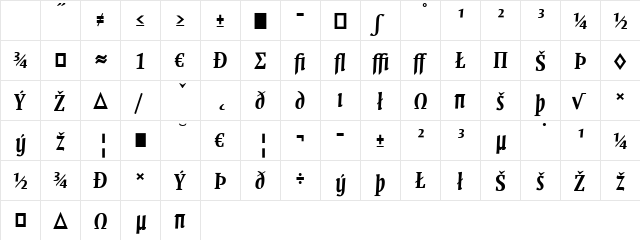
Complete QuadraatDis Italic glyph index. Displaying only characters natively supported by QuadraatDis Italic font.
QuadraatDis is a composed and adaptable typeface that performs quietly and consistently across a wide range of design contexts. The slanted form adds forward momentum and visual energy.
Pro Tip: Use QuadraatDis for emphasis, pull quotes, and subheadings where its slanted energy can add rhythm to the layout.